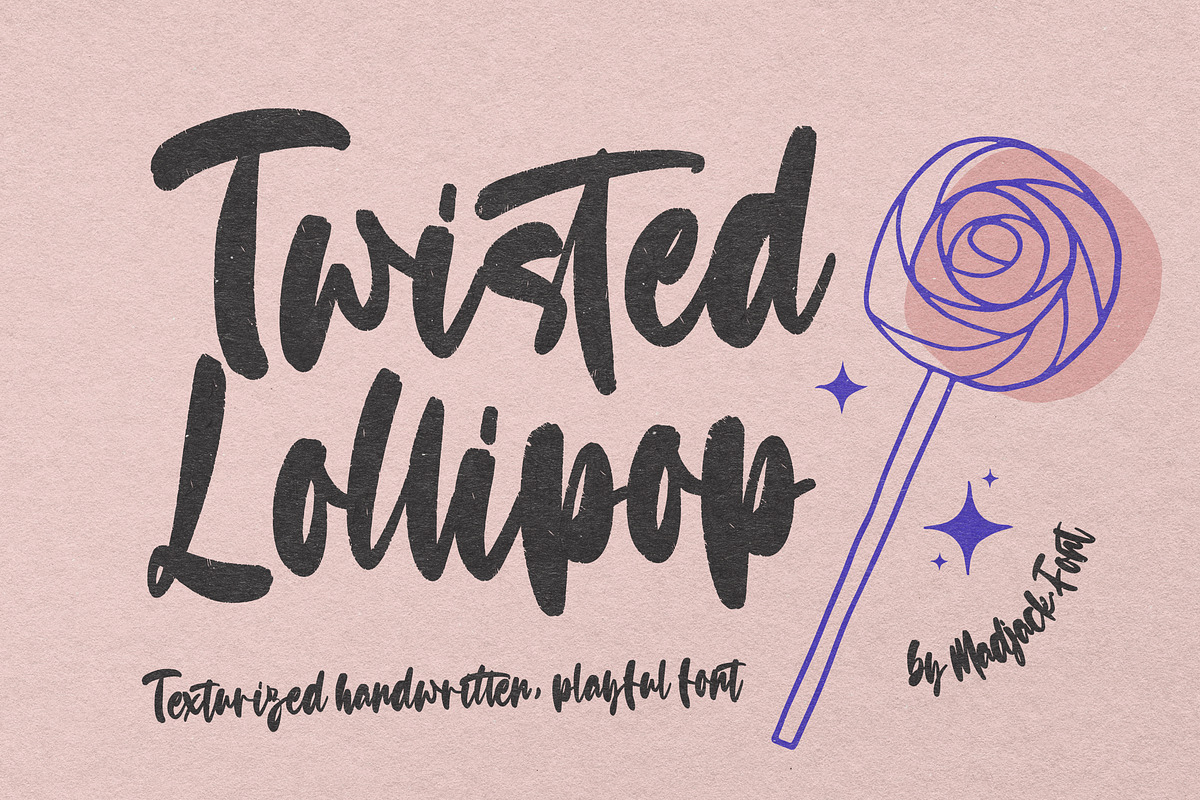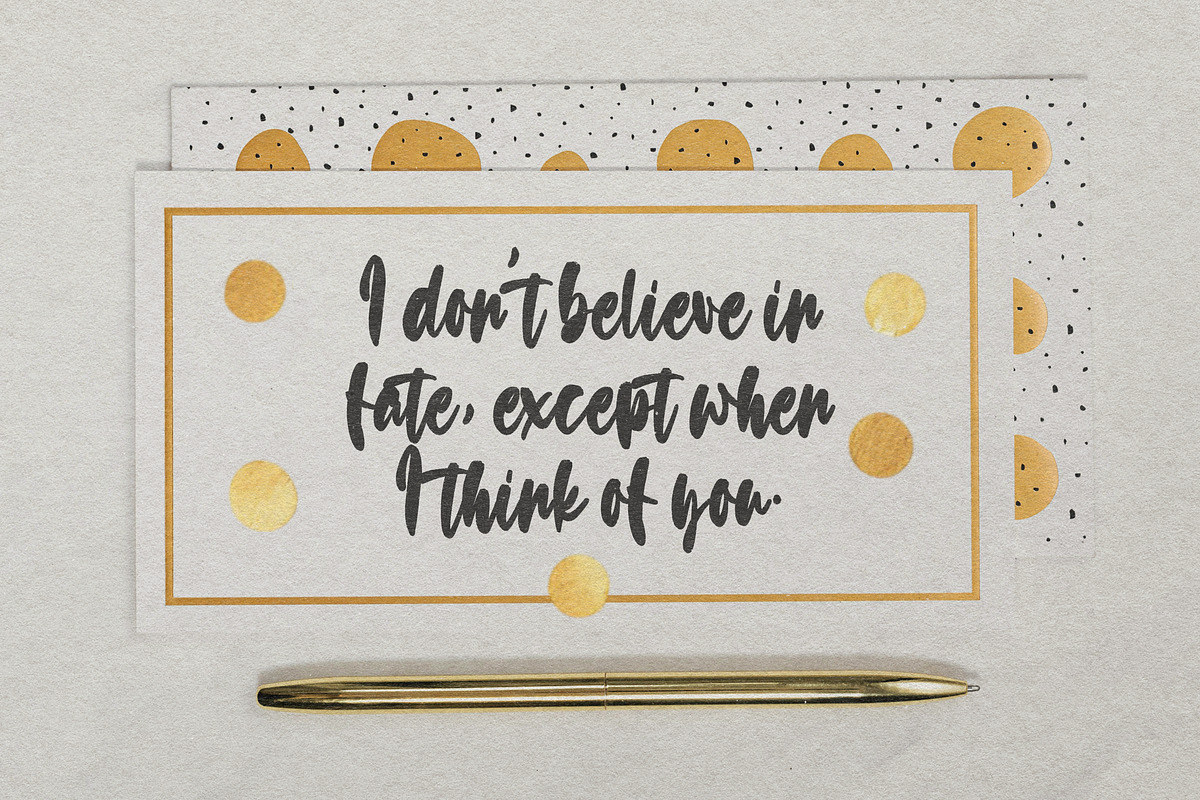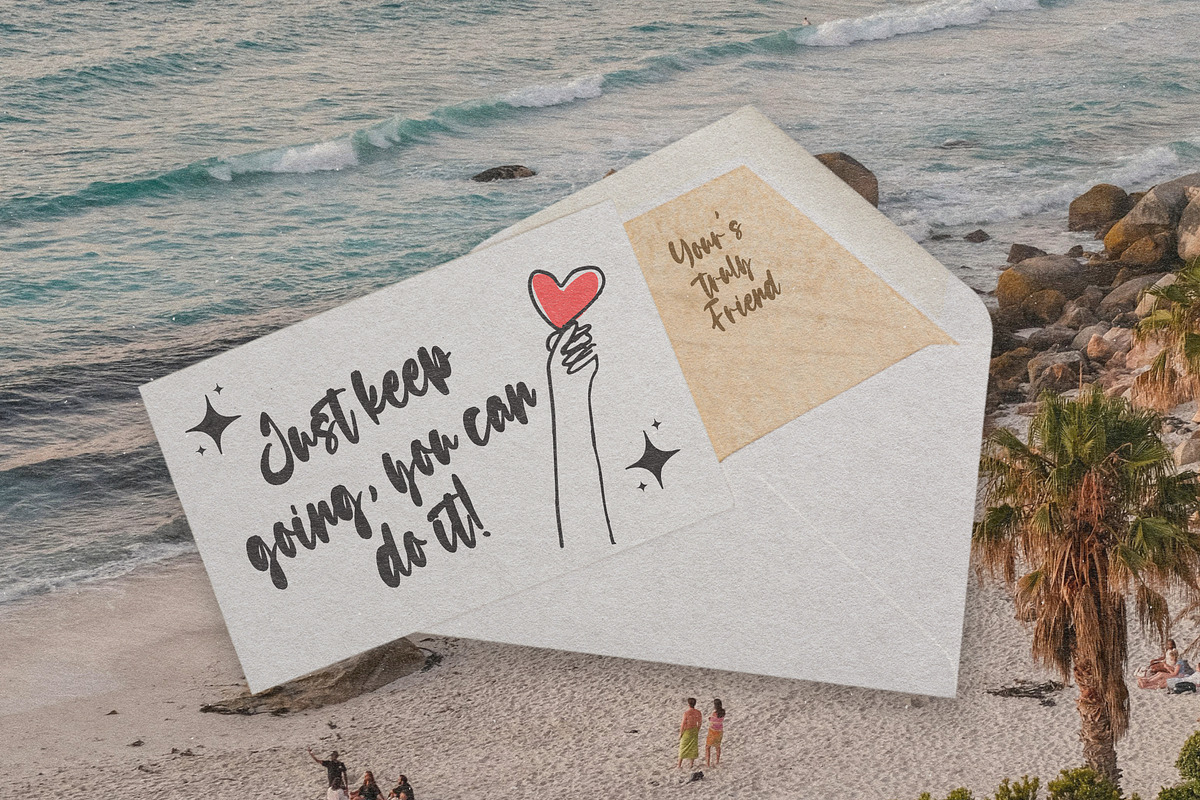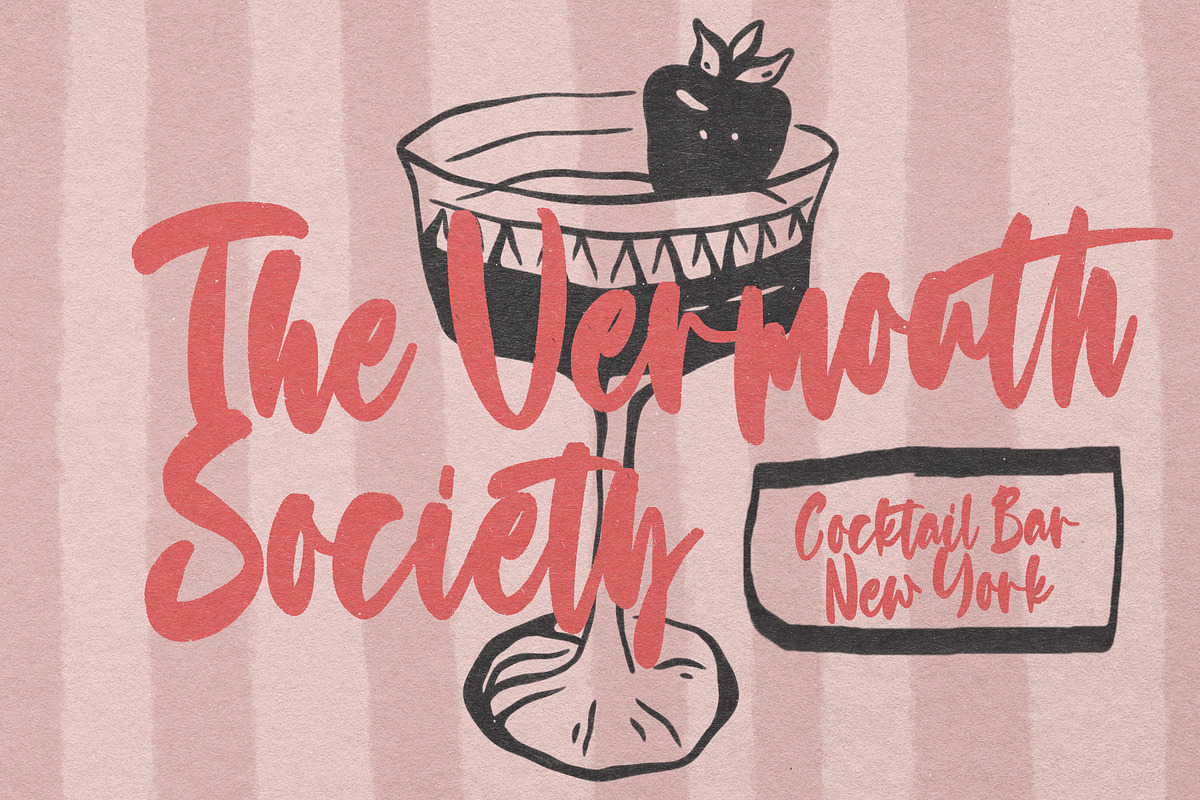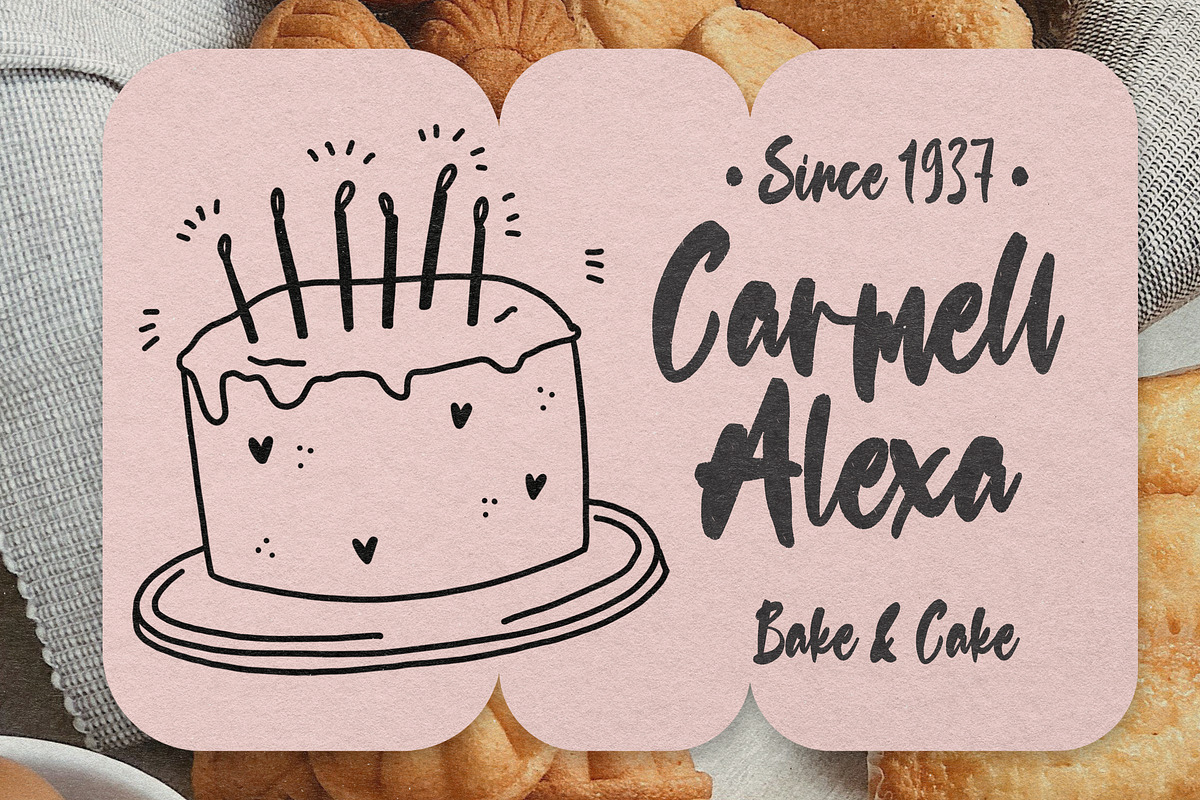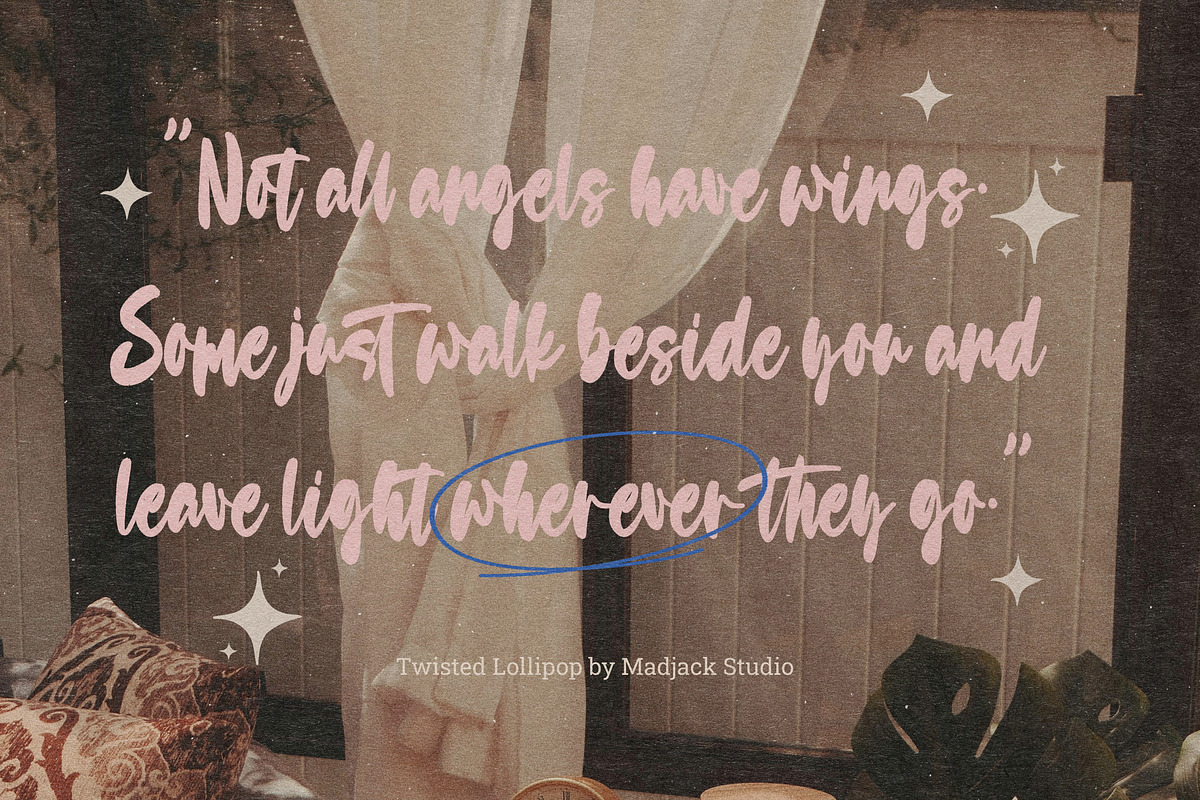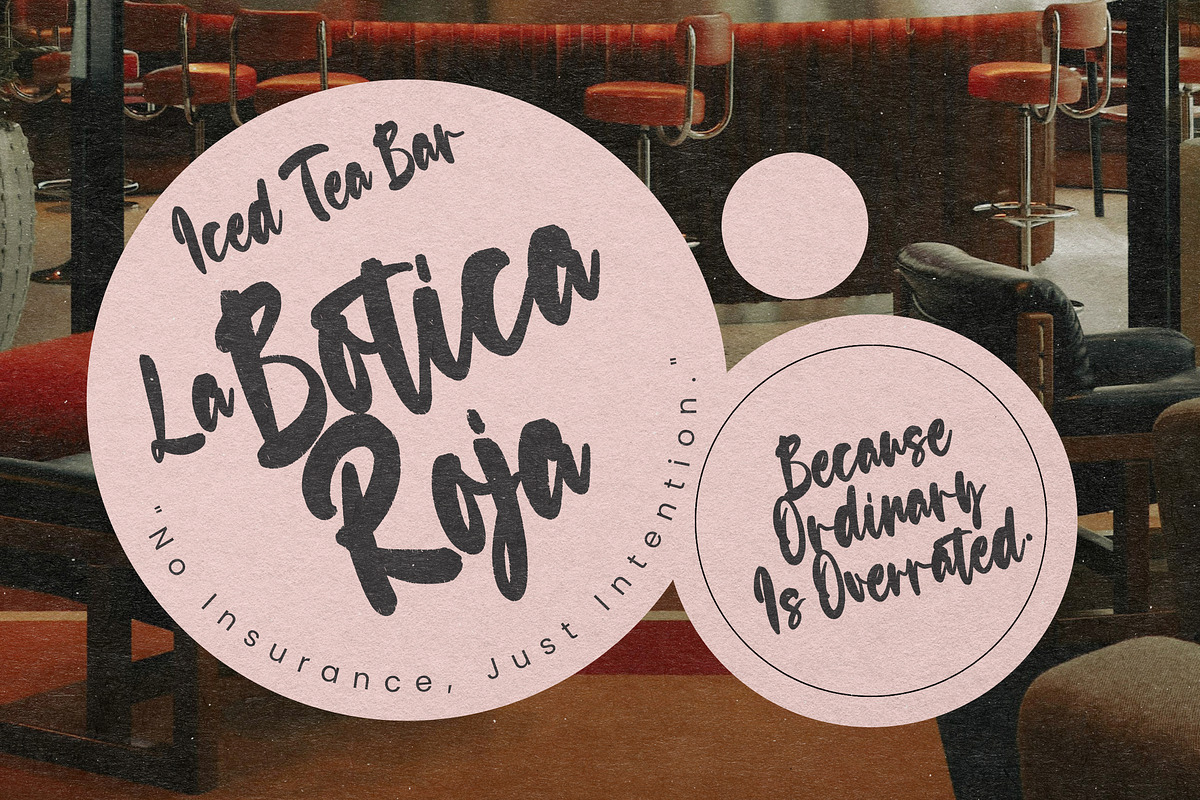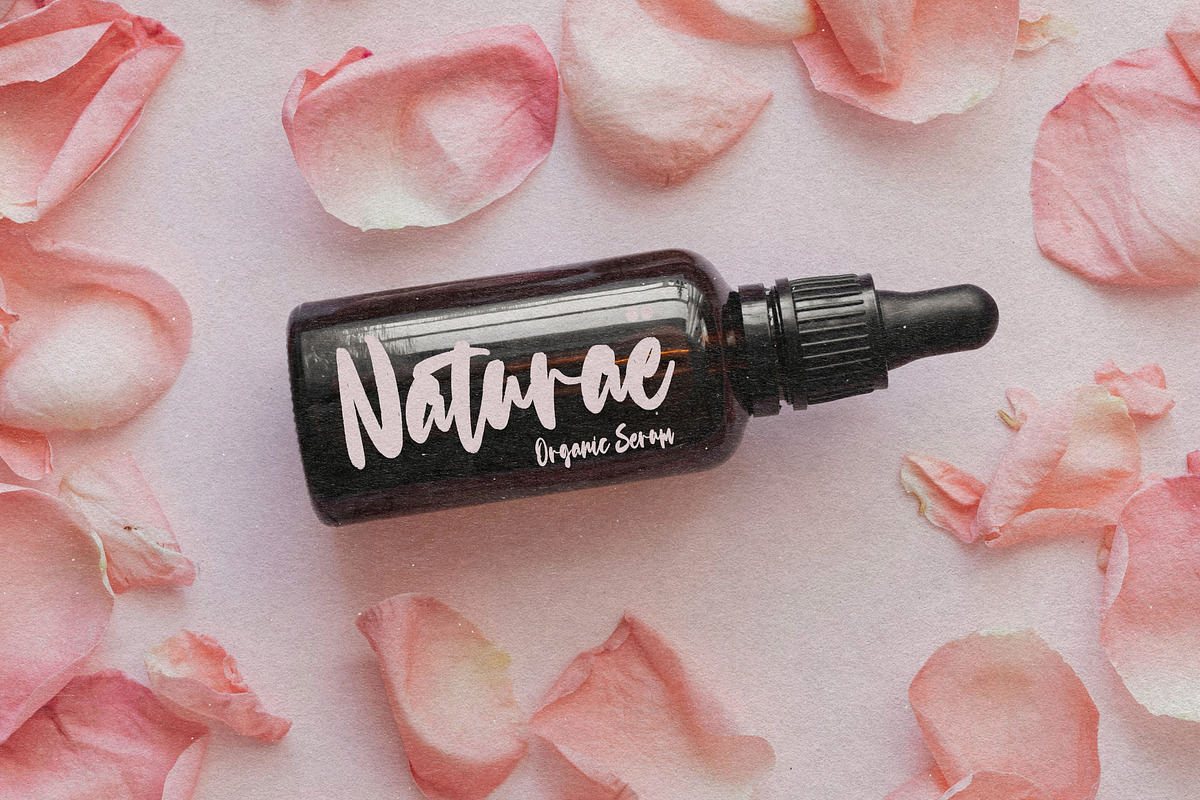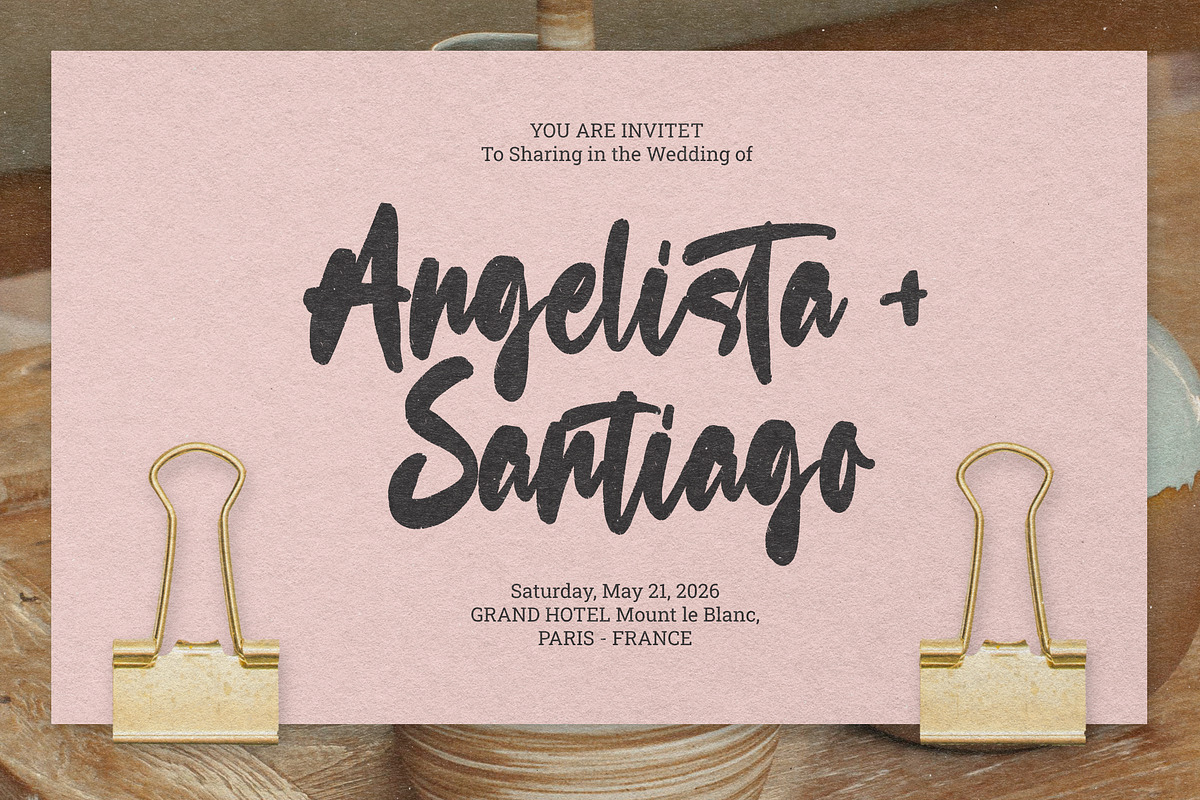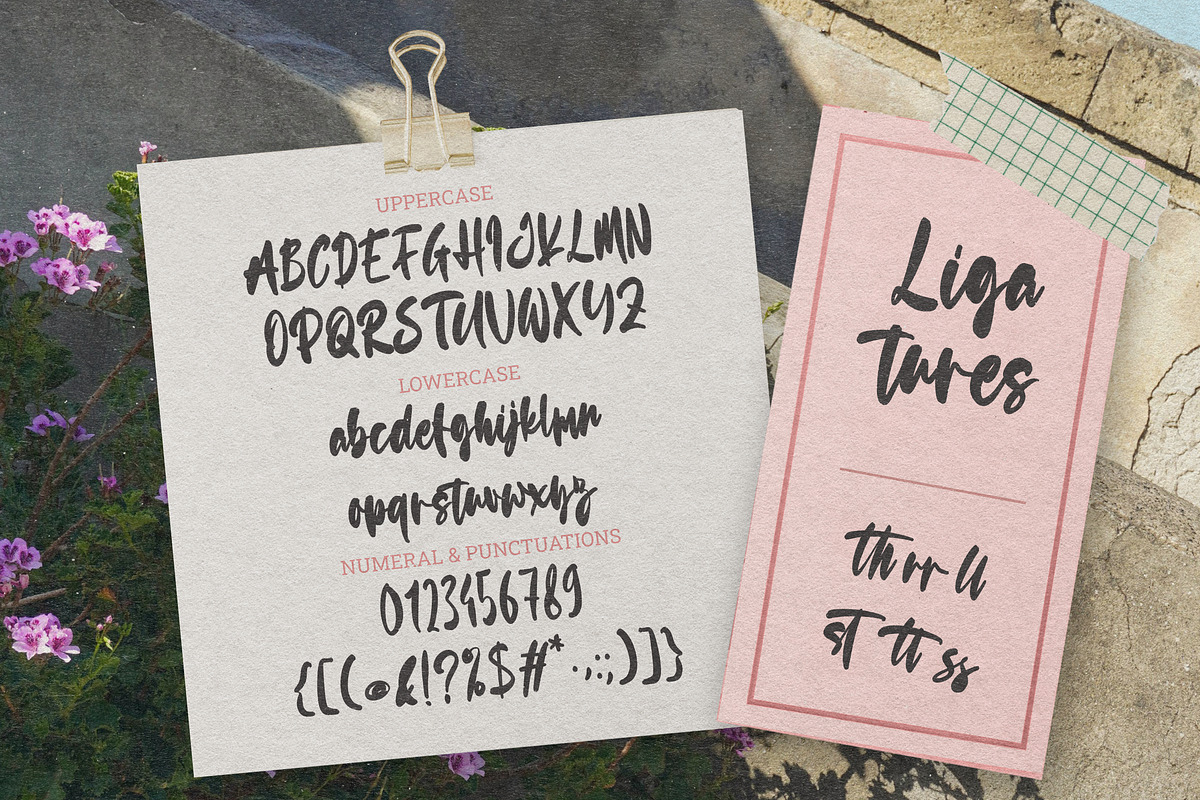
Twisted Lollipop
Twisted Lollipop is a modern classic style script font inspired by classic handwriting in books. This font is complete with style sets, contextual alternates, ligatures, and also multilingual support that adds to the aesthetics that make your work more attractive.
This Twisted Lollipop is perfect for your creative projects such as Logotype, printed quotes, invitations, cards, product packaging, headers, Letterheads, Apparel, Web Design, Magazines, Books, etc.